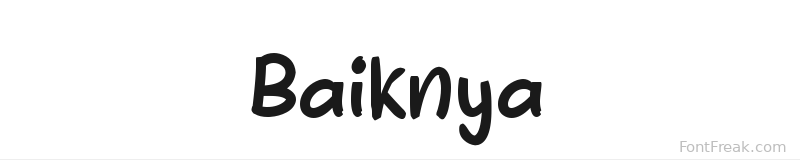
Baiknya
Baiknya is a stylish handwritten font designed by Wahyu Eka Prasetya, falling into the script category. This font features a unique blend of playful and elegant characteristics, making it both approachable and sophisticated. The stroke weight is medium, providing a balanced contrast that enhances readability while maintaining a casual flair. The letters exhibit a smooth flow with generous spacing, allowing for effective legibility in various applications. Decorative elements, such as slight curls and loops at the ends of certain letters, add a whimsical touch that further elevates its charm.
This versatile font is perfect for a range of creative projects. It shines in wedding invitations, where its graceful curves can convey warmth and romance. Additionally, Baiknya is an excellent choice for restaurant menus, lending a personal touch that complements a cozy dining atmosphere. It can also be used effectively in branding materials, such as logos and business cards, where a friendly yet professional appearance is desired. Content creators will find this font ideal for social media graphics, giving their posts an inviting and engaging quality that draws attention.
Targeted primarily at graphic designers, small business owners, and content creators, the Baiknya font encourages creativity and expression. Its freeware license ensures that anyone can access and utilize it without financial constraints, making it an attractive option for those looking to enhance their designs.
What sets Baiknya apart is its ability to combine elegance with a casual vibe, making it suitable for both formal and informal contexts. This unique balance allows designers to employ the font in a variety of settings, ensuring that it remains a valuable asset in any creative toolkit. For those seeking a fresh addition to their font collection, the Baiknya font free download is a must-try.